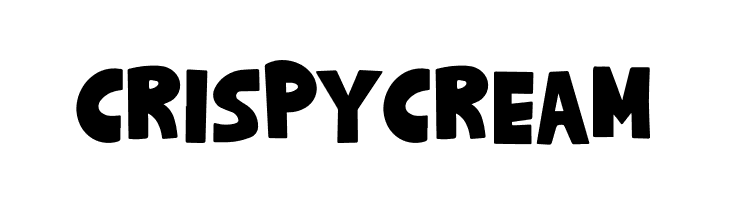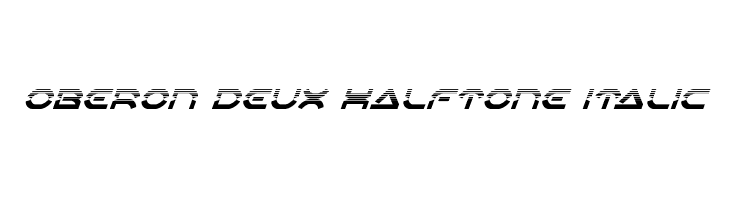
A playful, handwritten font with tall, narrow letters and a quirky style.
A bold sans-serif font with whimsical owl illustrations accompanying each letter.
A modern, italicized font with smooth curves and a sleek design.
A bold, decorative font with circular patterns inside each uppercase letter.
A bold, left-slanted font with a modern and assertive style.
A high-contrast, elegant serif font with decorative uppercase and traditional lowercase letters.
A bold, rounded font with a playful and chunky style.
A sleek, italicized font with a modern and dynamic style.
A modern, handwritten font with a casual and flowing style.